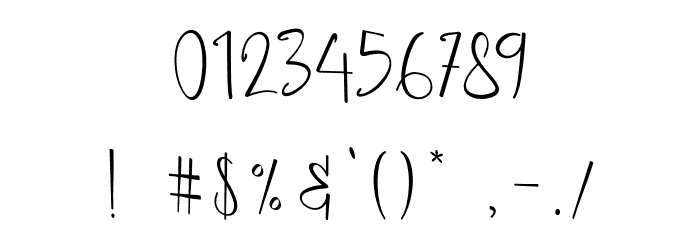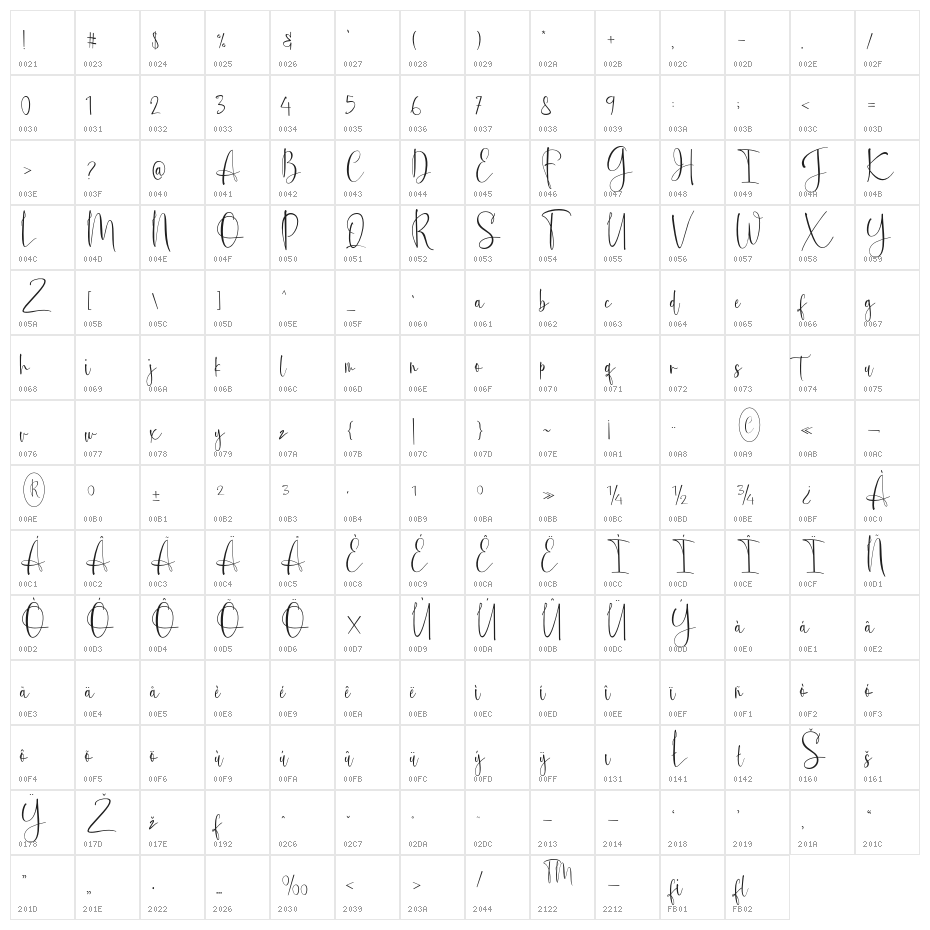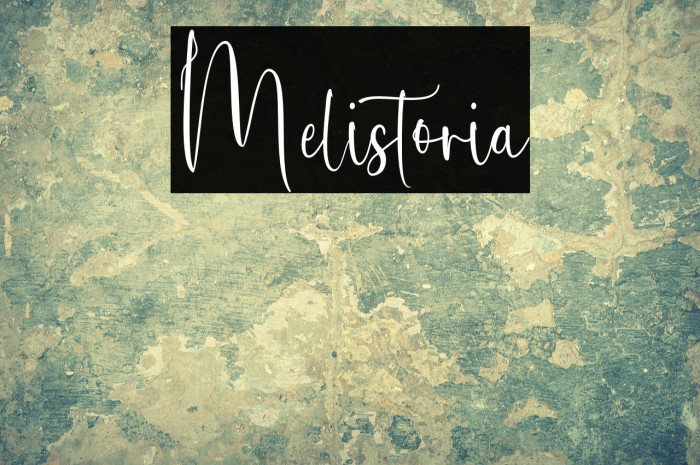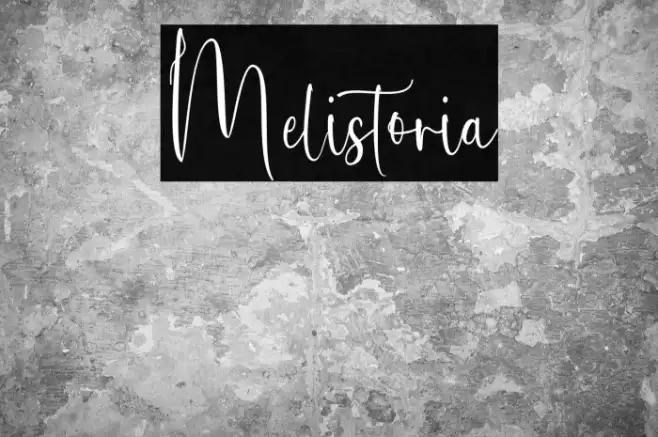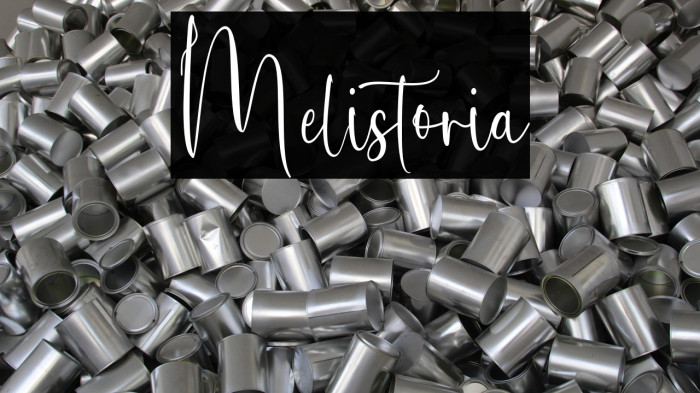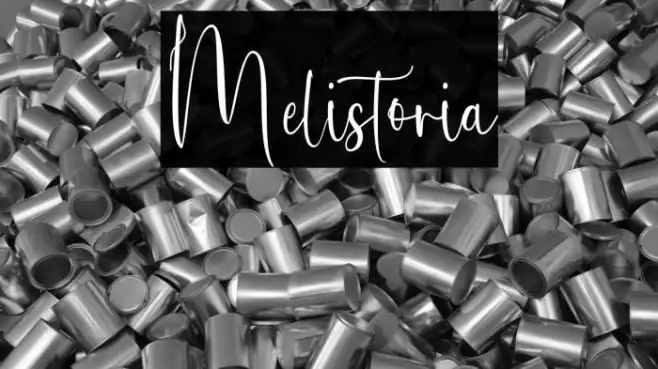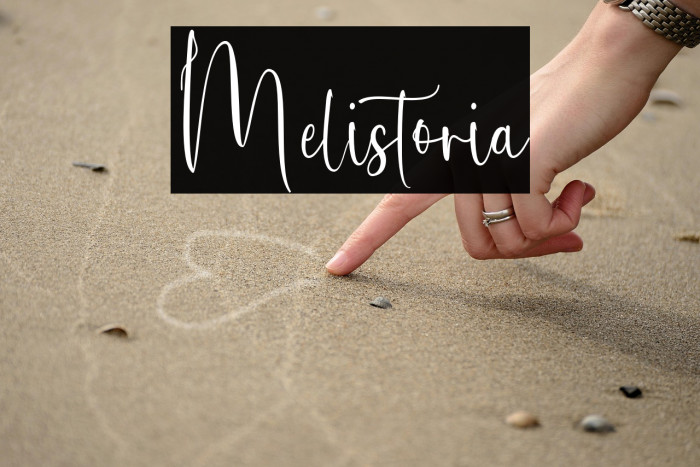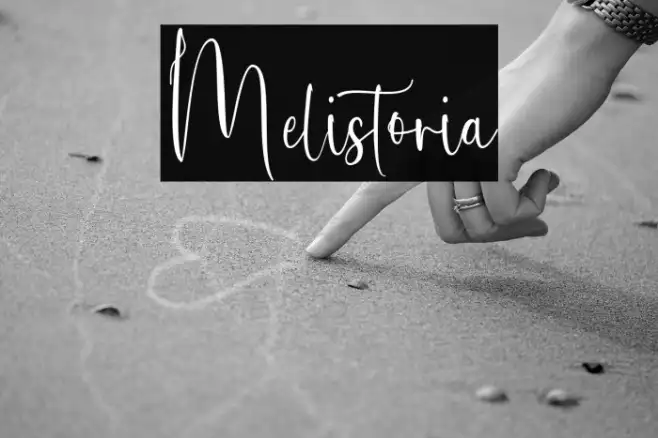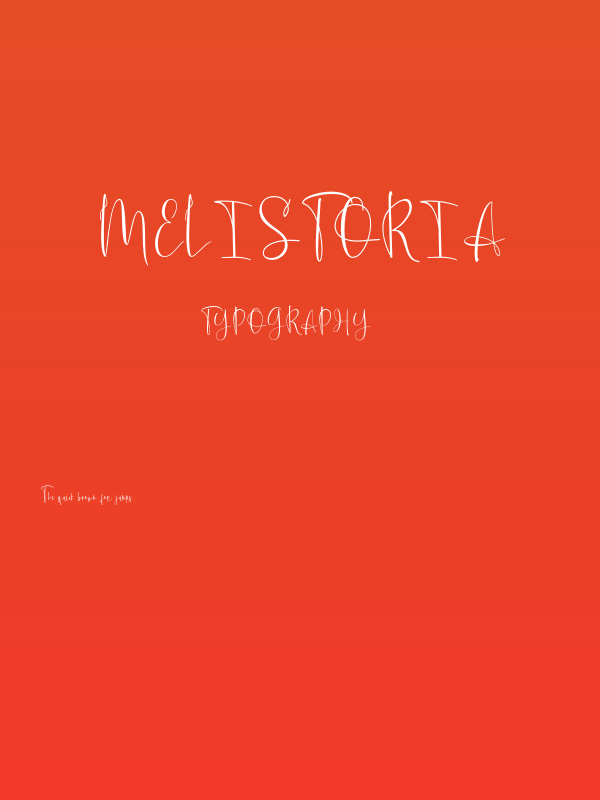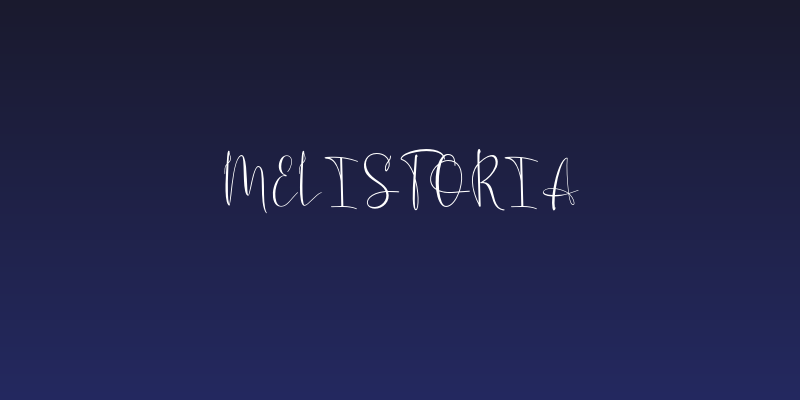
Melistoria Font
Melistoria Description
This font features an elegant and flowing script style, characterized by its delicate and whimsical strokes. The uppercase letters are tall and slender, with a playful looped design that adds a touch of sophistication. The lowercase letters maintain a consistent fluidity, with some characters featuring unique flourishes that enhance the overall aesthetic. Numbers and special characters are crafted with the same attention to detail, ensuring a cohesive look across all elements. The font's artistic nature makes it ideal for creative projects that require a personal touch.
| Proposed Projects | Ideal for wedding invitations, greeting cards, branding projects, and any design requiring a personal, artistic touch. |